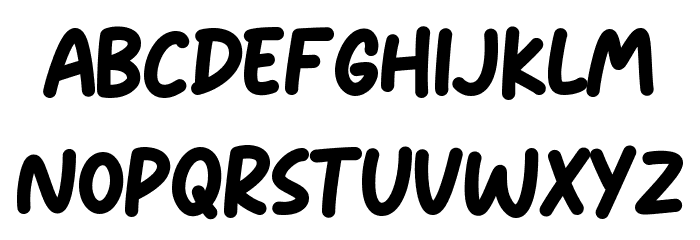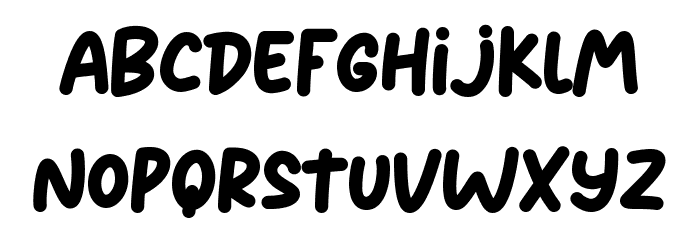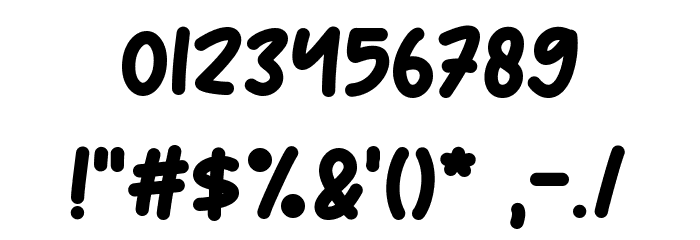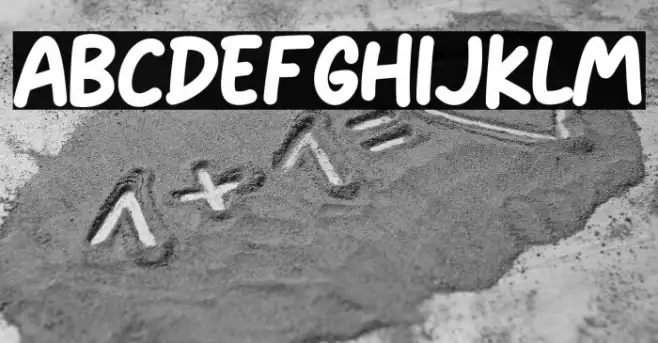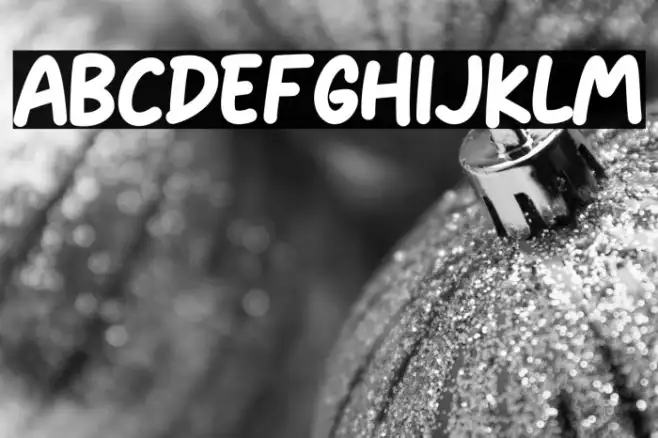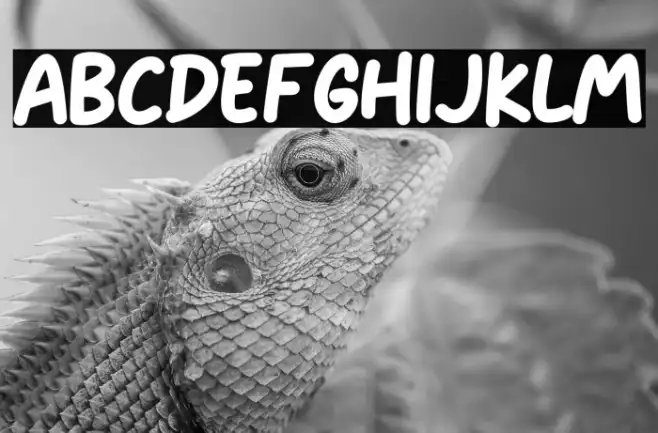
Moonchild Font
This playful and bold font features rounded, thick strokes that give it a friendly and approachable appearance. The letters are slightly slanted, adding a dynamic and informal touch. The uppercase and lowercase characters maintain a consistent style, with smooth curves and a uniform thickness throughout. The numbers and special characters are designed to match the overall aesthetic, ensuring a cohesive look across all text elements. This font's design is both modern and whimsical, making it suitable for a variety of creative applications.
A playful, bold font with rounded, thick strokes and a slightly slanted style.
- Font: Moonchild
- Proposed Projects: Ideal for children's books, playful branding, casual invitations, and creative posters.
- Overall Style: Playful, Modern